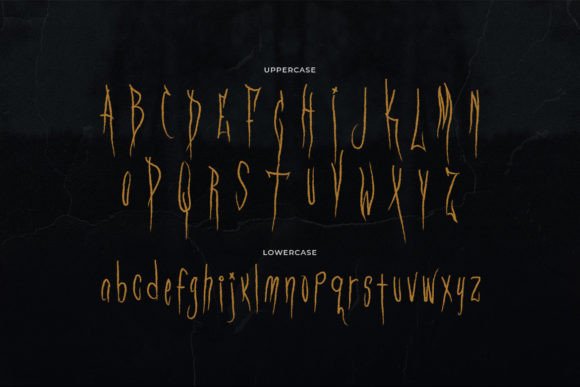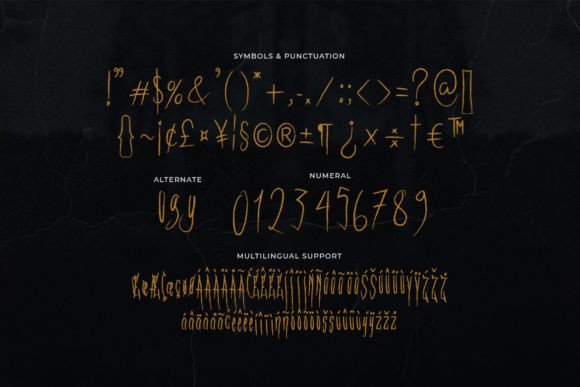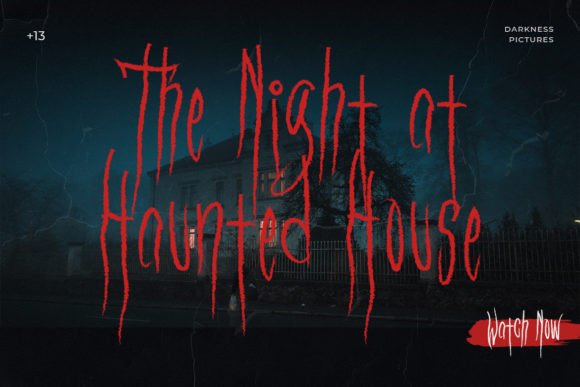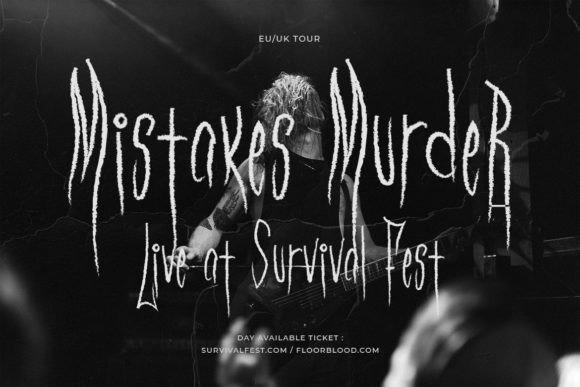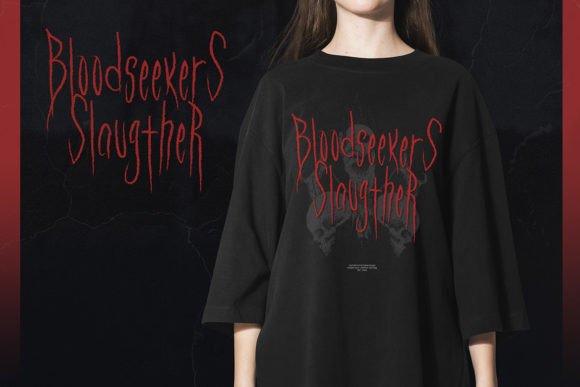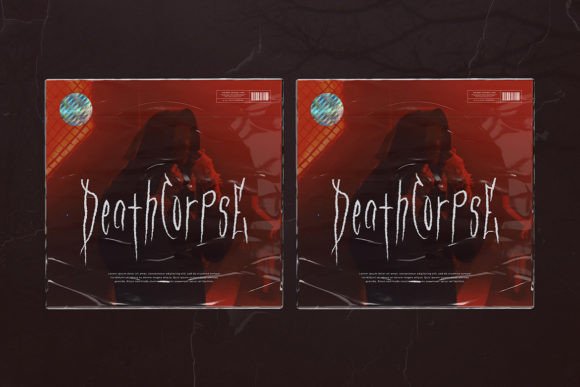
Introduction to Jumps Shock Font
If you’re looking for a font that’s sure to send shivers down your spine, look no further than Jumps Shock – a horror handwritten font that’s perfect for adding a touch of fear to your designs.
With its twisted, jagged letterforms and unsettling vibe, Jumps Shock is a font that’s sure to make an impact It’s perfect for use in horror movie posters, Halloween graphics, or any other project where you want to create a sense of unease and tension.